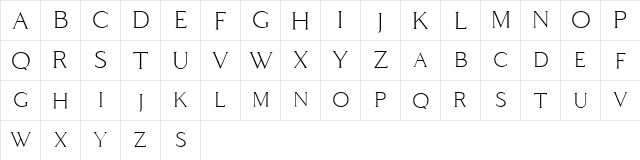
Coldiac Free Regular
Design Context for Coldiac Free Typeface
Coldiac Free offers clean, dependable letterforms without strong stylistic allegiance, making it a practical choice for designers who need flexibility.